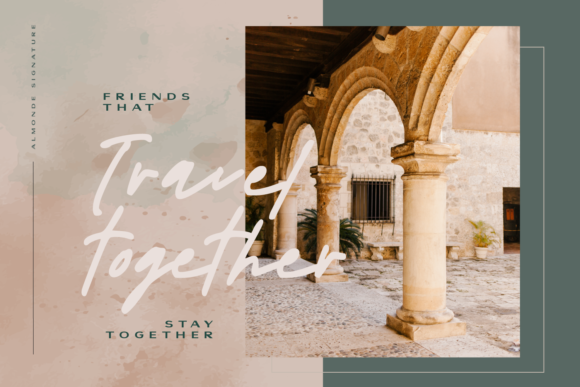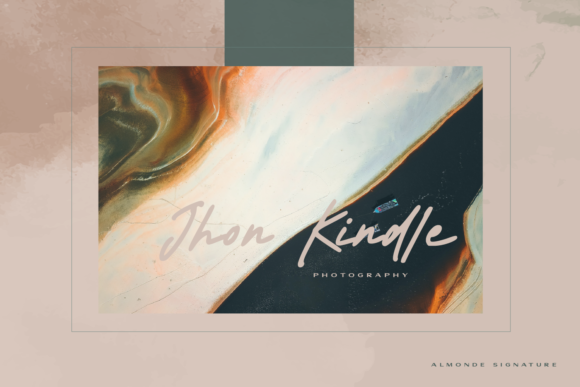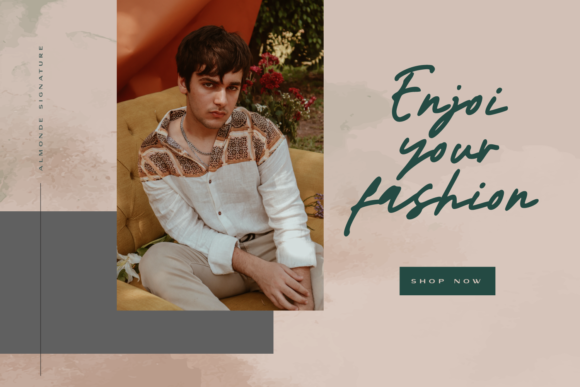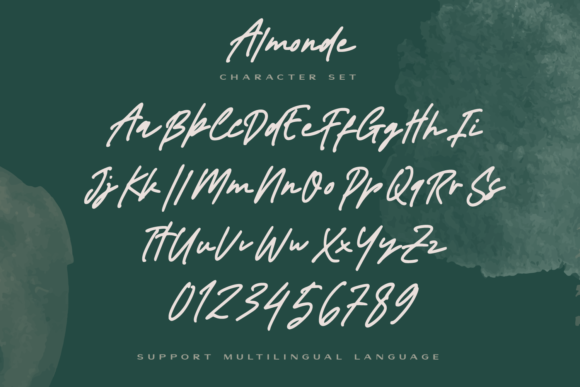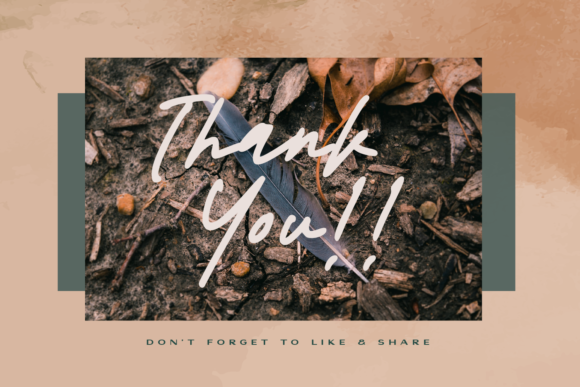
Introducing Almonde Font: The Ultimate Paint Brushed Script Font for Designers and Crafters
Are you tired of using the same old fonts for your designs? Do you want to add a touch of elegance and sophistication to your branding, logos, and quotes? Look no further than Almonde Font, a flexible paint brushed script font that is sure to take your designs to the next level. With its unique asymmetrical characters, Almonde Font is the perfect choice for designers and crafters who want to create eye-catching and memorable designs.
What Makes Almonde Font So Special?
Almonde Font is a one-of-a-kind font that features beautiful, hand-painted strokes that give it a distinctive and artistic look. Every letter has a unique and beautiful touch, which will make your design come alive! The font’s asymmetrical characters add a touch of whimsy and playfulness, making it perfect for designs that require a bit of personality. Whether you’re creating a logo, branding materials, or quotes, Almonde Font is sure to make your design stand out from the crowd.
The Benefits of Using Almonde Font
So why should you choose Almonde Font for your design needs? Here are just a few benefits of using this amazing font:
- Elegant and Sophisticated Look: Almonde Font has a sleek and sophisticated look that is perfect for high-end designs. The font’s elegant strokes and beautiful lettering make it ideal for luxury brands, fashion designers, and artists.
- Unique and Memorable Designs: With its asymmetrical characters and hand-painted strokes, Almonde Font is sure to create unique and memorable designs that will leave a lasting impression on your audience.
- Flexible and Versatile: Almonde Font is a flexible font that can be used for a wide range of design projects, from logos and branding materials to quotes and social media graphics.
- Easy to Read: Despite its artistic and elegant look, Almonde Font is easy to read and understand, making it perfect for designs that require a clear and concise message.
How to Use Almonde Font in Your Designs
Using Almonde Font in your designs is easy and straightforward. Here are a few tips to get you started:
- Pair it with Other Fonts: Almonde Font looks great when paired with other fonts, such as sans-serif fonts or serif fonts. Experiment with different font combinations to find the perfect look for your design.
- Use it for Headlines and Titles: Almonde Font is perfect for headlines and titles, where its elegant and sophisticated look can really shine.
- Add a Pop of Color: Almonde Font looks great in a variety of colors, so don’t be afraid to add a pop of color to your design. This will help your design stand out and grab attention.
Who Can Benefit from Using Almonde Font?
Almonde Font is perfect for a wide range of designers and crafters, including:
- Graphic Designers: Almonde Font is a great addition to any graphic designer’s toolkit. Its elegant and sophisticated look makes it perfect for a wide range of design projects, from logos and branding materials to brochures and flyers.
- Branding Experts: If you’re a branding expert looking for a font that can help you create unique and memorable designs, Almonde Font is the perfect choice.
- Artists and Illustrators: Almonde Font is a great choice for artists and illustrators who want to add a touch of elegance and sophistication to their work.
- Crafters and DIY Enthusiasts: If you’re a crafter or DIY enthusiast looking for a font that can help you create beautiful and eye-catching designs, Almonde Font is a great choice.
| Font Name | Almonde Font |
In conclusion, Almonde Font is a flexible paint brushed script font that is perfect for designers and crafters who want to create eye-catching and memorable designs. With its unique asymmetrical characters and beautiful hand-painted strokes, Almonde Font is sure to add a touch of elegance and sophistication to any design project. Whether you’re a graphic designer, branding expert, artist, or crafter, Almonde Font is a great addition to your toolkit.